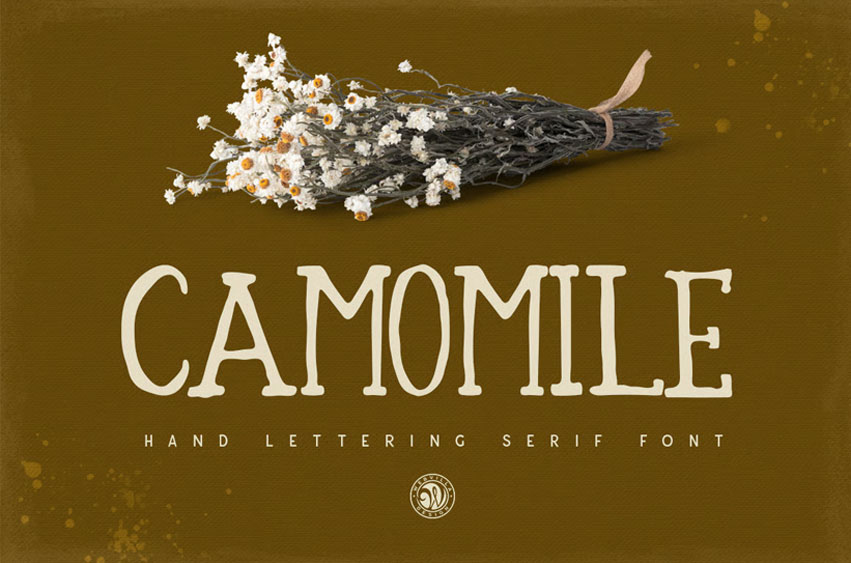
Camomile Font
Camomile Font hand lettering serif font. Ideal for invitations, logos, branding, blogs, handmade craft items, scrap booking, printed paper items and more.
• all caps font, numbers, punctuation, western european diacritics